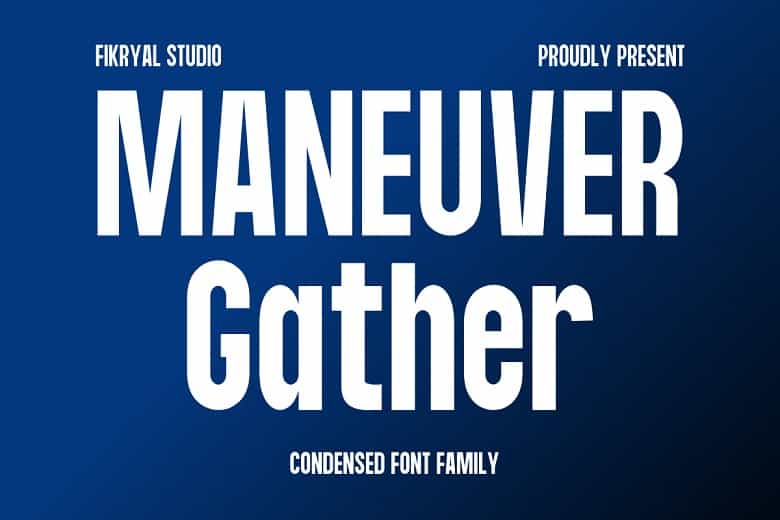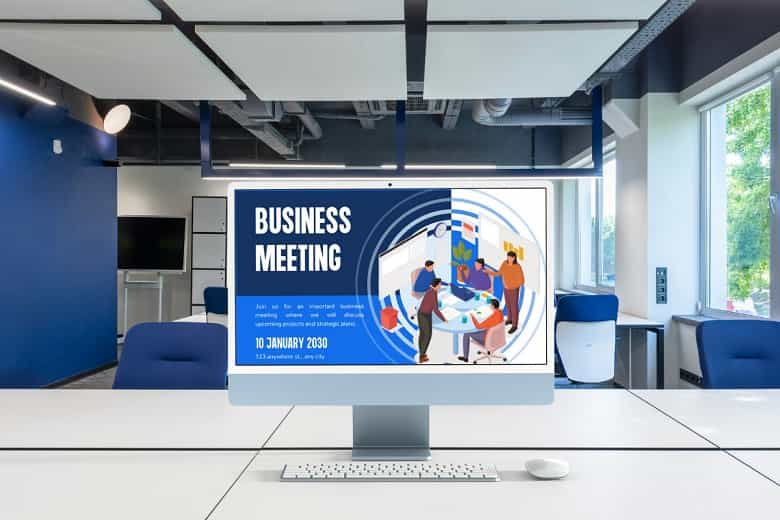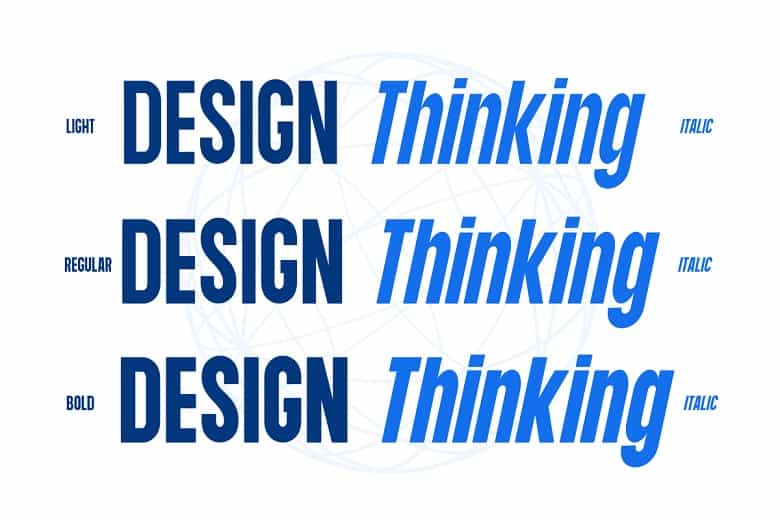
Maneuver Gather is a contemporary and elegant condensed sans font family that is ideal for use in all your design works. This font is perfect for designs that need to take up as little space as possible, while still being very legible – it’s a slim font, but not at all difficult to read.